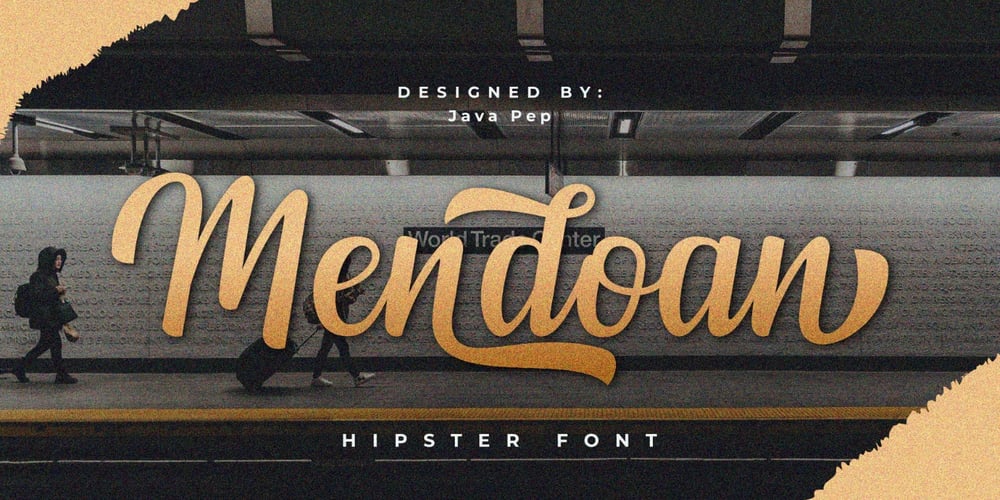
Mendoan Script Font Family was designed by Java Pep and published by Java Pep. Mendoan Script contains 1 styles and family package options. Mendoan Script is inspired by a hipster style that brings youth, excitement, art, intelligence, and movement. Mendoan comes with OpenType features such as alternates, stylistic alternates, and ligatures. Do magic with Mendoan script. It’s PUA encoded and includes multi-lingual support. Don’t hesitate to drop me a message if you have any questions. Have a nice day:)